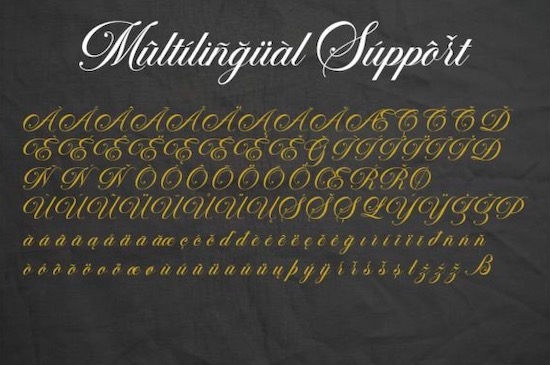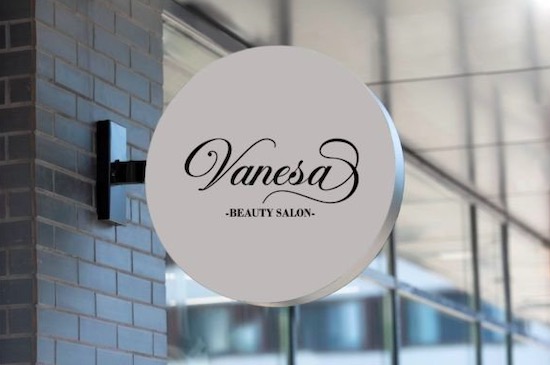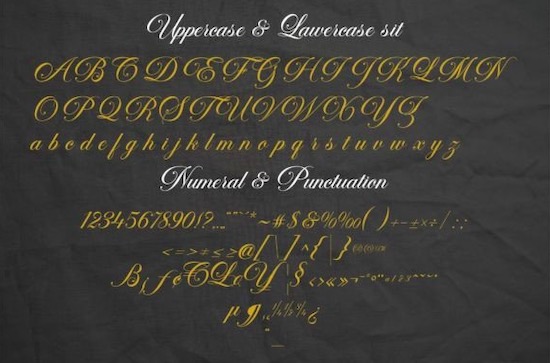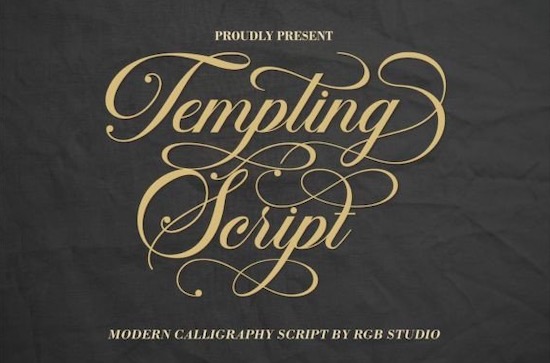
Tempting feels incredibly flowing and cool. It was released by RGB Studio along with a highly detailed look. It’s PUA encoded so that you can access easily all swashes and glyphs. It looks gorgeous on thank you cards, greeting cards, business cards, wedding invitations, quotes, logos, and more.
Tempting Calligraphy Script Font
Name: Tempting
Designed, Published by: RGB Studio
Font Categories: Calligraphy, Script